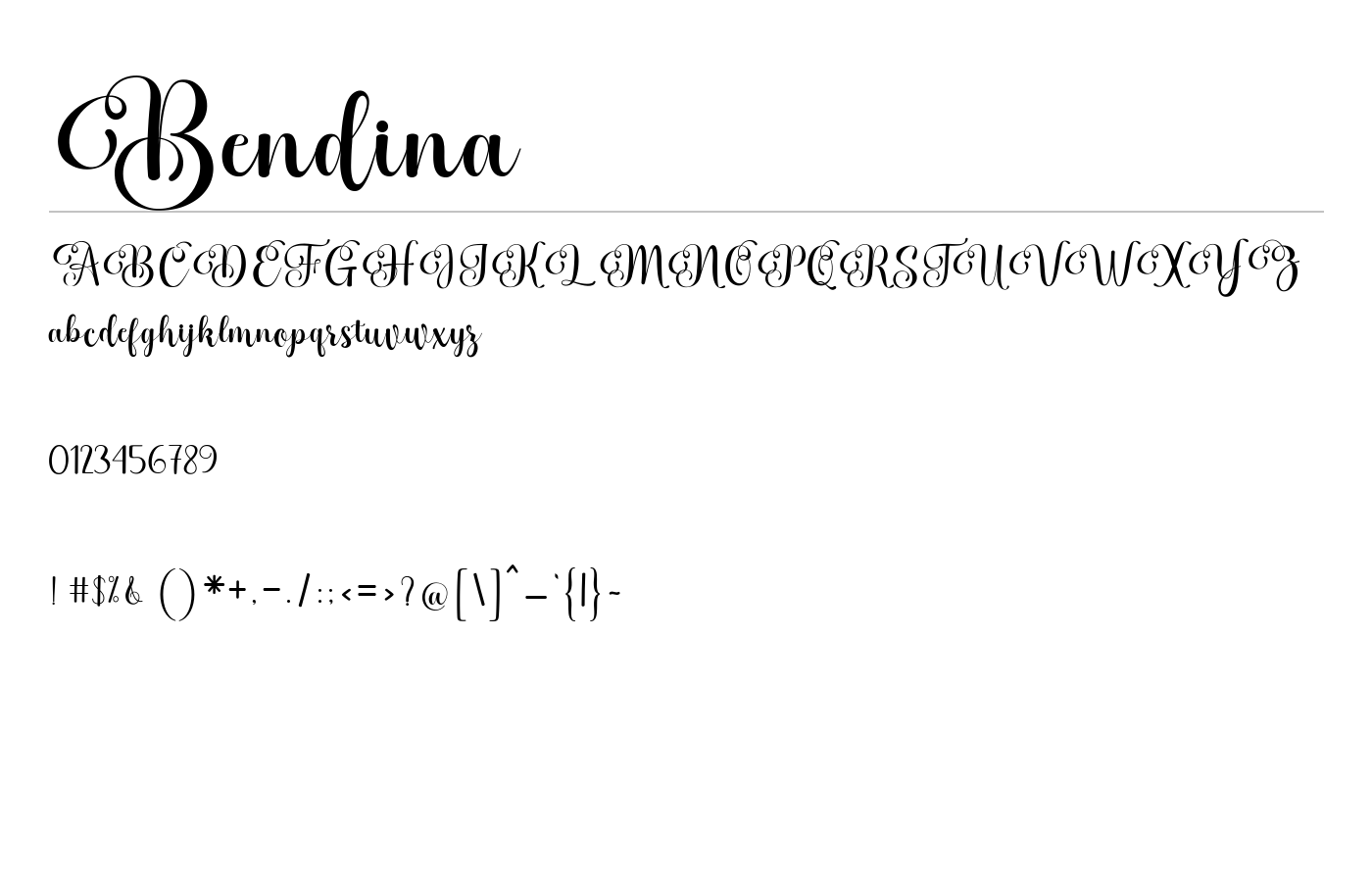
Bendina is an elegant script font featuring a delicate and flowing design with high contrast between thick and thin strokes, primarily suited for decorative and sophisticated uses. Its ornate uppercase letters with swashes and refined lowercase forms give it a graceful, luxurious feel, making it ideal for wedding invitations, branding, and editorial headlines where a touch of classic charm is desired. This font shines in contexts that call for a stylish, feminine, and vintage-inspired aesthetic.
Bendina Font